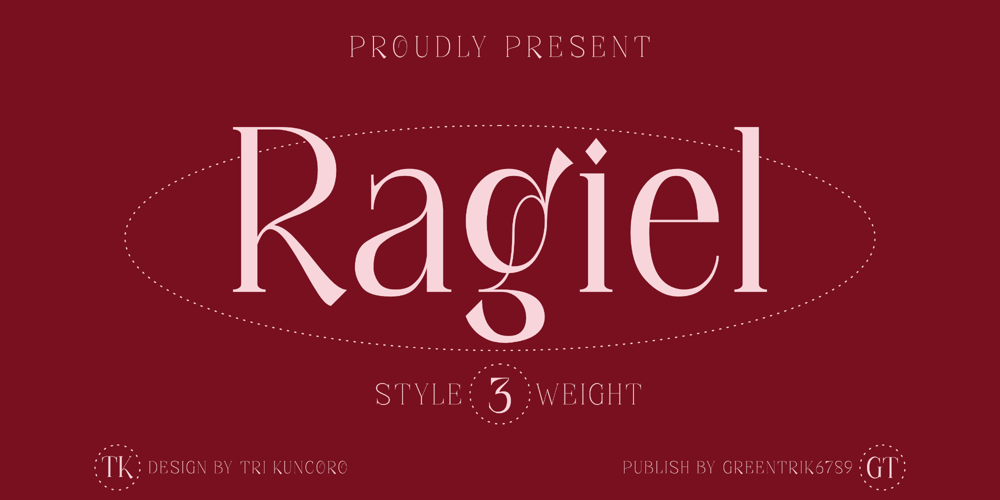
Ragiel
Ragiel font
Ragiel Font Family was designed by Tri Kuncoro and published by Greentrik6789. Ragiel contains 9 styles and family package options. Ragiel is an elegant and classy serif font, inspired by a didone-style font with high contrast and upright axes.With high contrast it will be very suitable for display needs such as posters, advertisements, logos, billboards, covers, labels, and various types of display designs.Ragiel is equipped with uppercase and lowercase characters that support multi-language, and comes in 3 styles and 3 weights in each style to add aesthetics to your artwork.We hope you enjoy this font, and don’t hesitate to leave a comment or message if you have problems or questions.Thank you 🙂